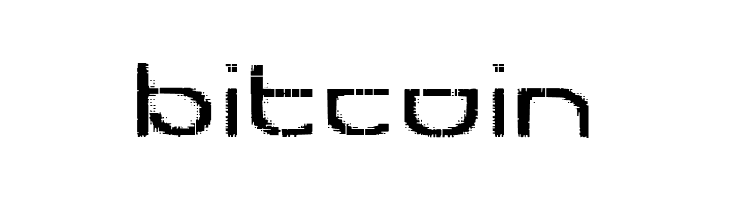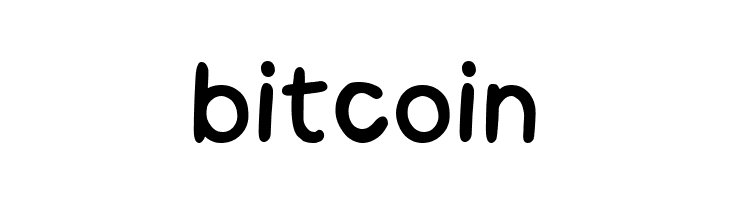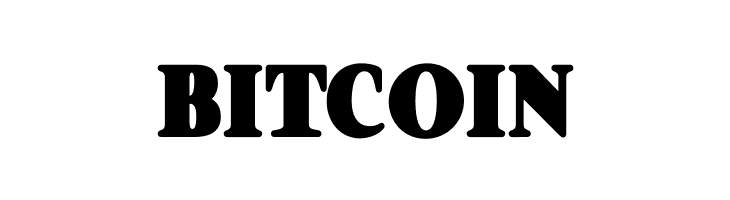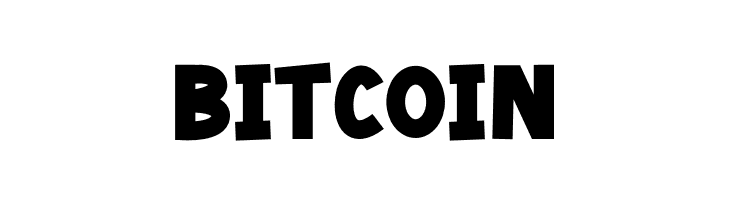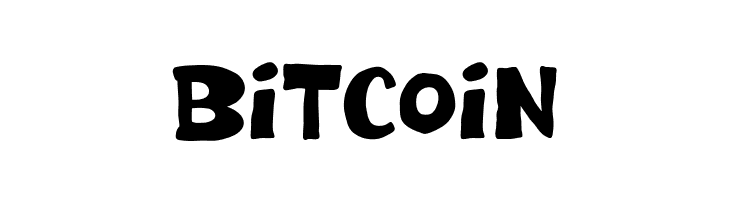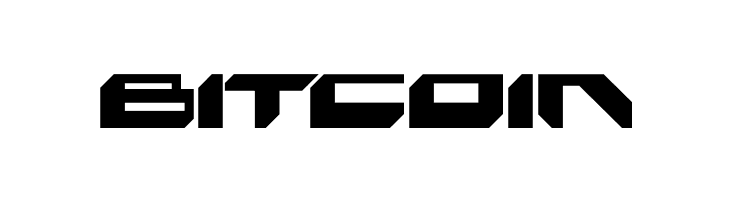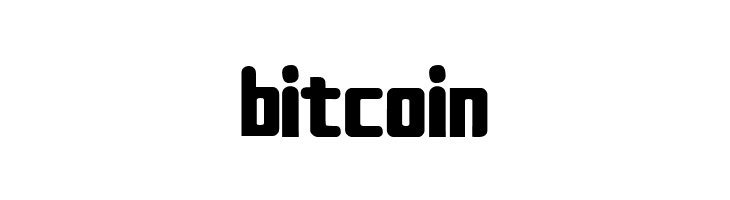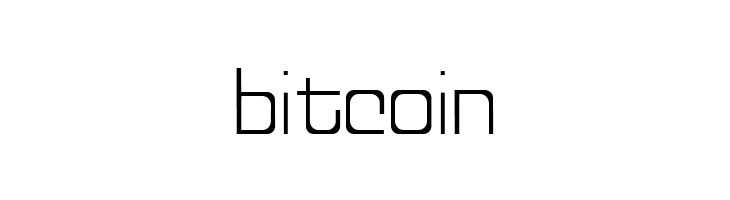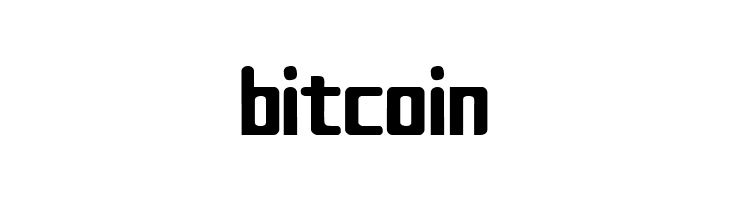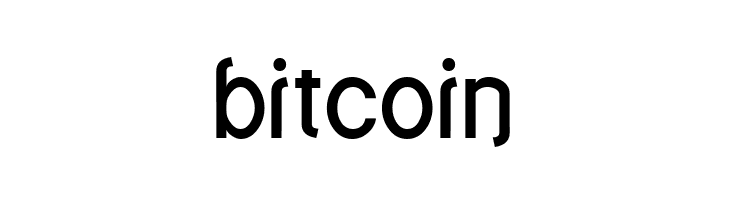
A bold, decorative font with intricate foliage-like detailing.
A dynamic script font with elegant, flowing lines and a vintage feel.
A playful, bold font with exaggerated, uneven strokes and a whimsical appearance.
A playful, handwritten font with smooth, rounded strokes.
Playful, bold, hand-drawn font.
Futuristic geometric font with bold, angular design.
A bold, pixelated font with a retro digital style.
A geometric, modern font with clean lines and a structured appearance.
A bold, italic font with a modern and dynamic style.
A playful, hand-drawn font with irregular strokes and a lively appearance.
A modern, dotted font with a pixelated, digital aesthetic.
A bold, thorn-like font with sharp, angular elements.
A bold, modern, and condensed font with uniform strokes and rounded edges.
A futuristic, geometric font with a pixelated, tech-inspired design.
A playful, rounded, and handwritten-style font with a friendly vibe.
A bold, geometric font with rounded edges and a modern feel.
A modern, geometric font with clean lines and uniform stroke width.
A casual, handwritten font with a playful and informal style.
A bold, modern font with rounded edges and geometric structure.
A modern sans-serif font with geometric shapes and uniform strokes.
A modern, playful font with unique curves and clean lines.
A modern, italicized, and condensed font with a sleek and dynamic style.
A bold, pixelated font with a retro, 8-bit digital aesthetic.
A modern, striped font with a digital and futuristic design.
A bold, hand-drawn font with an artistic and playful style.
A bold, geometric font with angular and modern design elements.
A playful, bold outline font with a hand-drawn, comic-style appearance.
A modern, geometric font with uniform line thickness and a minimalistic design.
A playful, handwritten font with bold strokes and a casual, organic feel.
A playful, casual handwritten font with dynamic strokes.
A playful, handwritten font with bold strokes and medium contrast.
A playful, hand-drawn outline font with a bold and whimsical style.
A geometric, angular font with a futuristic and digital aesthetic.